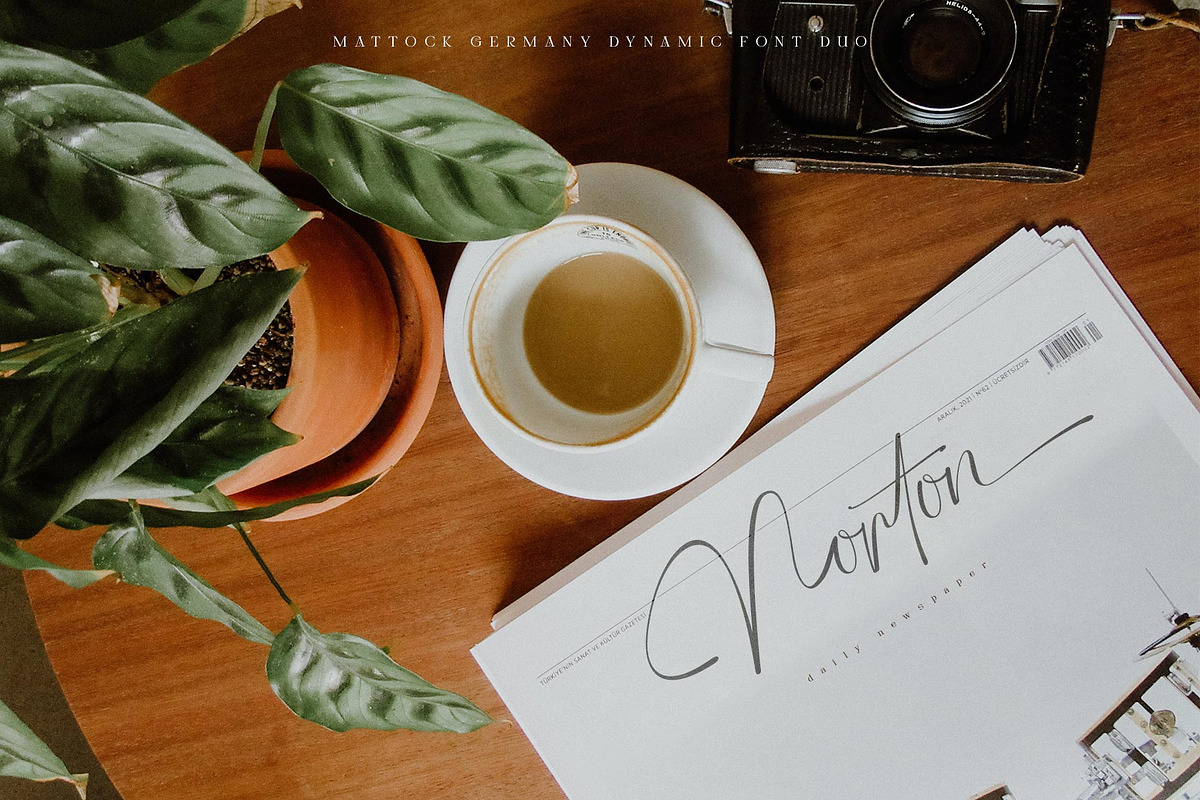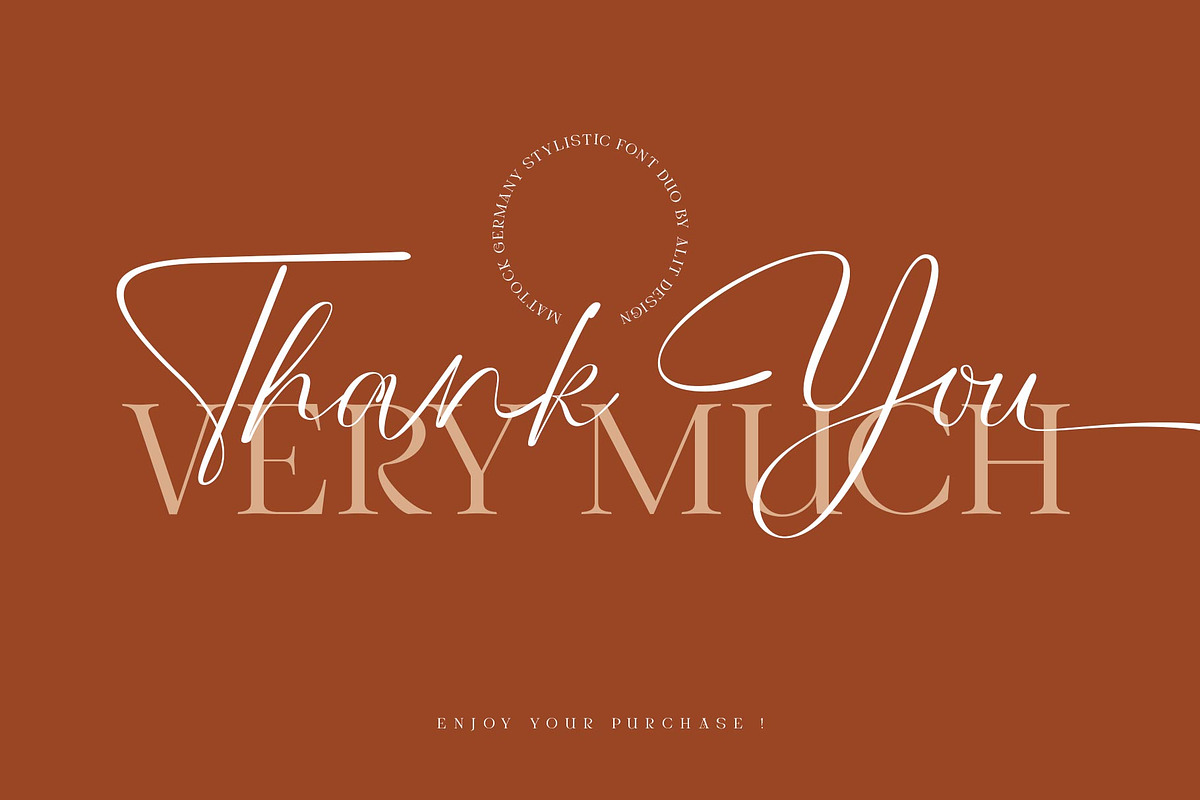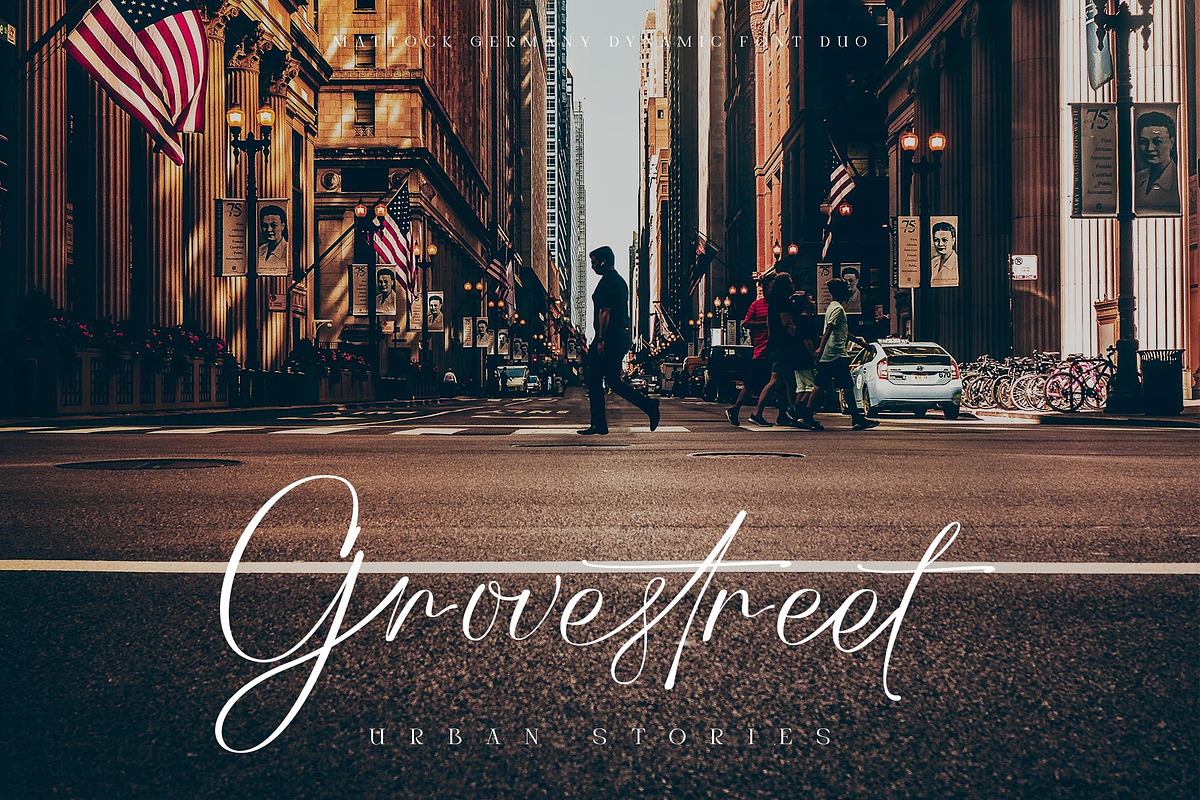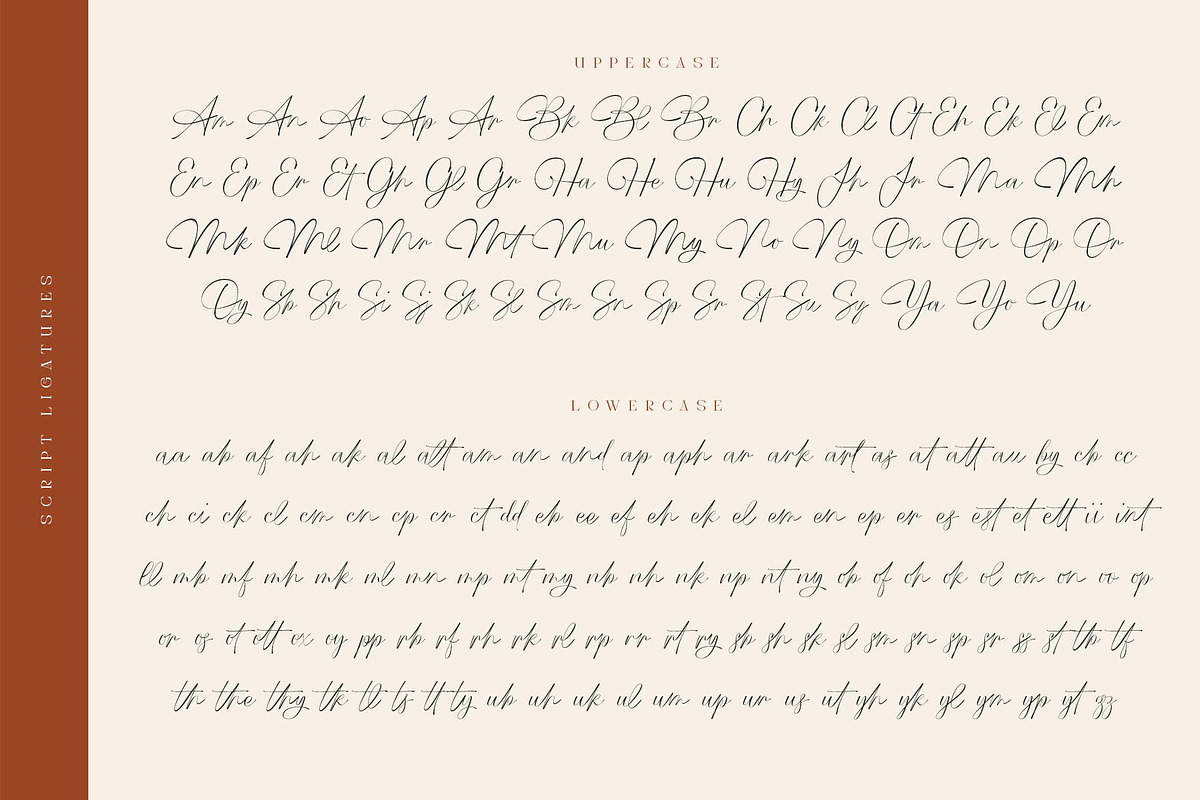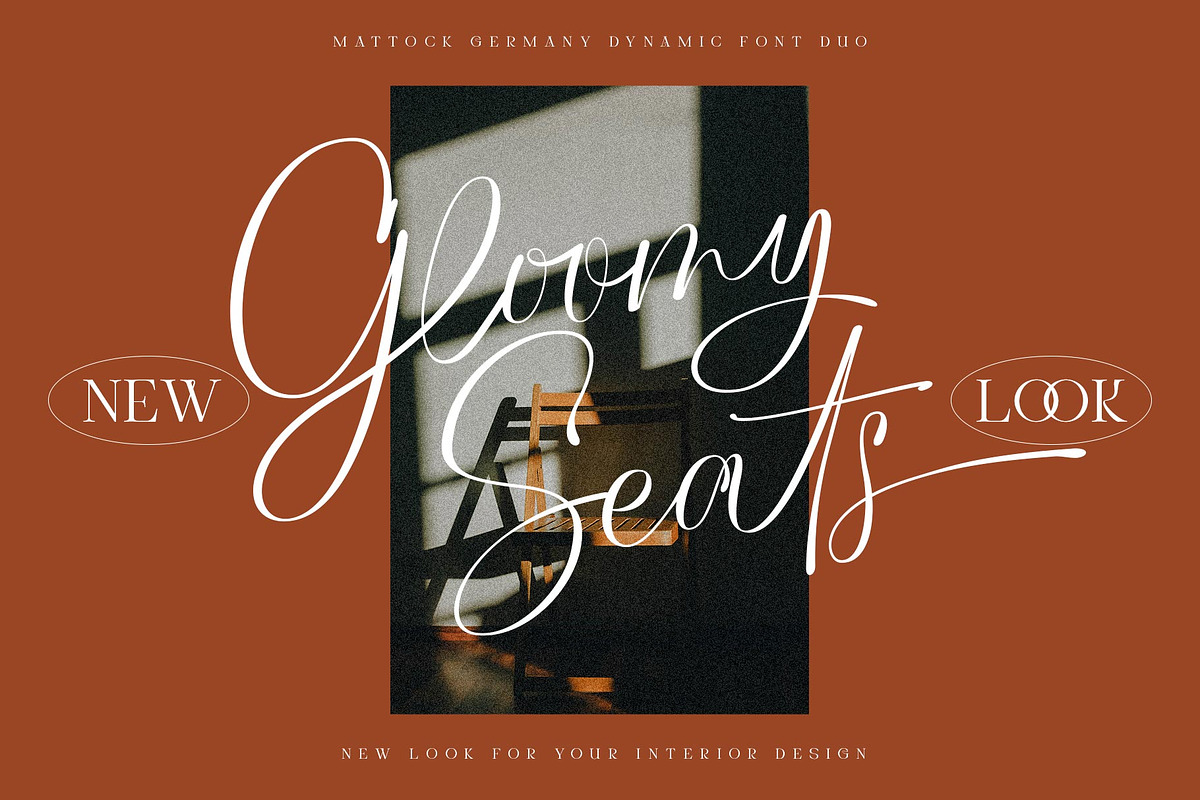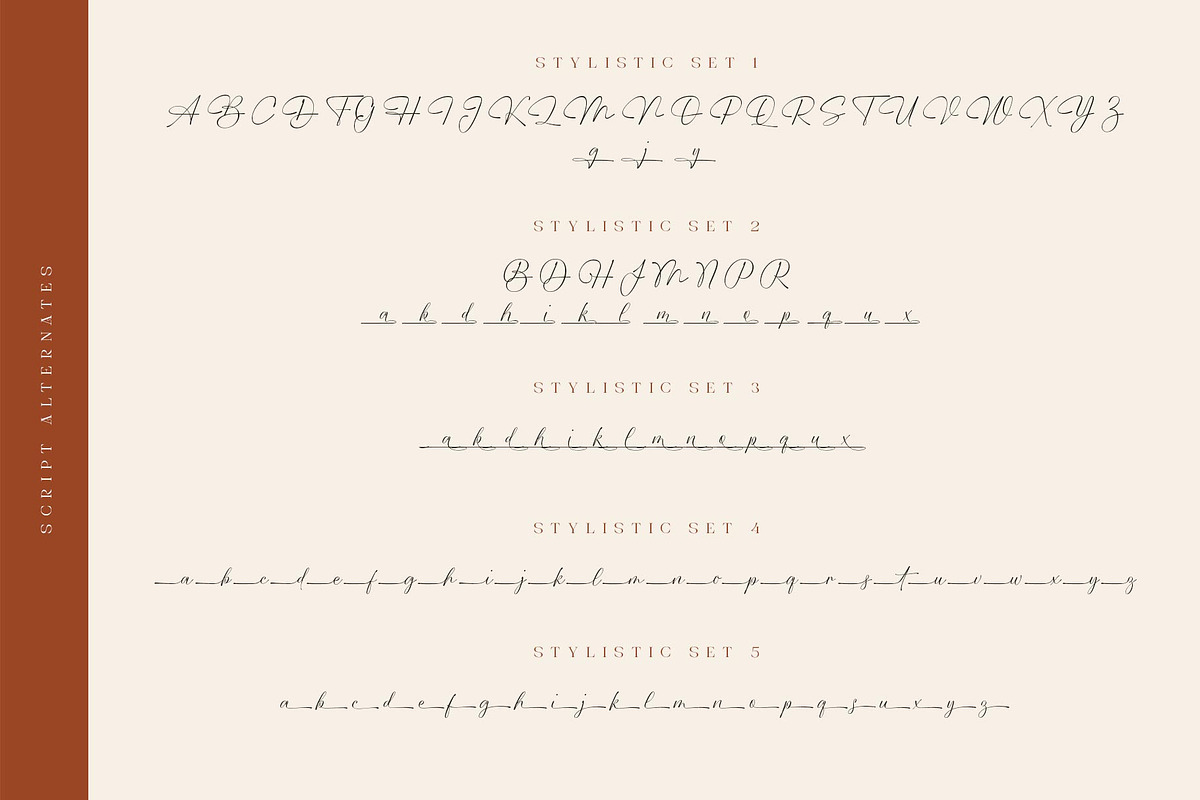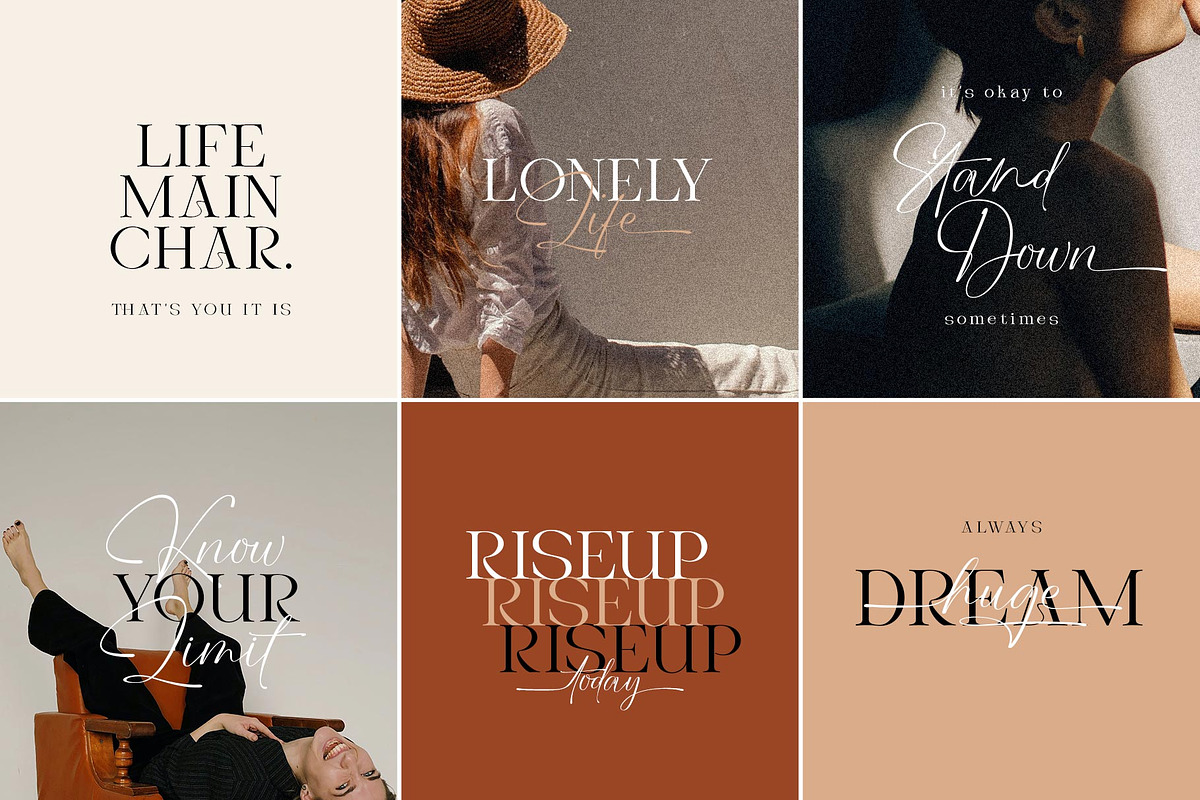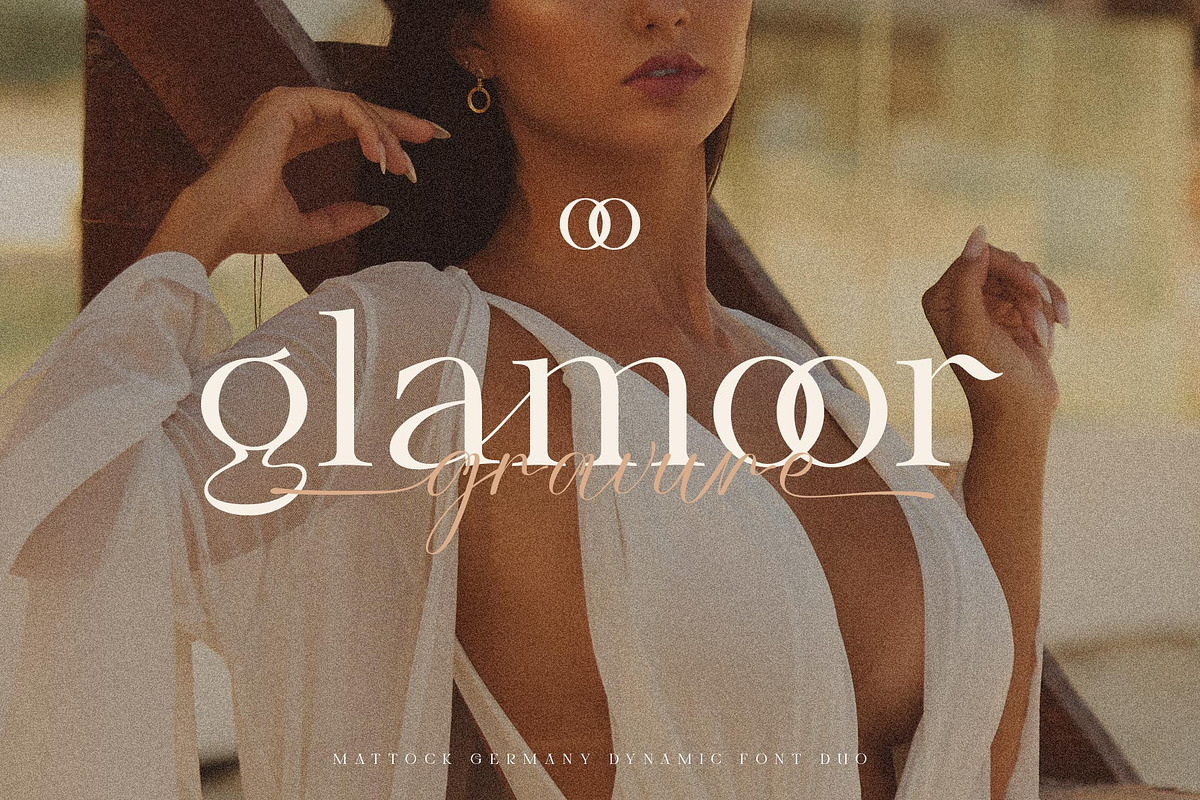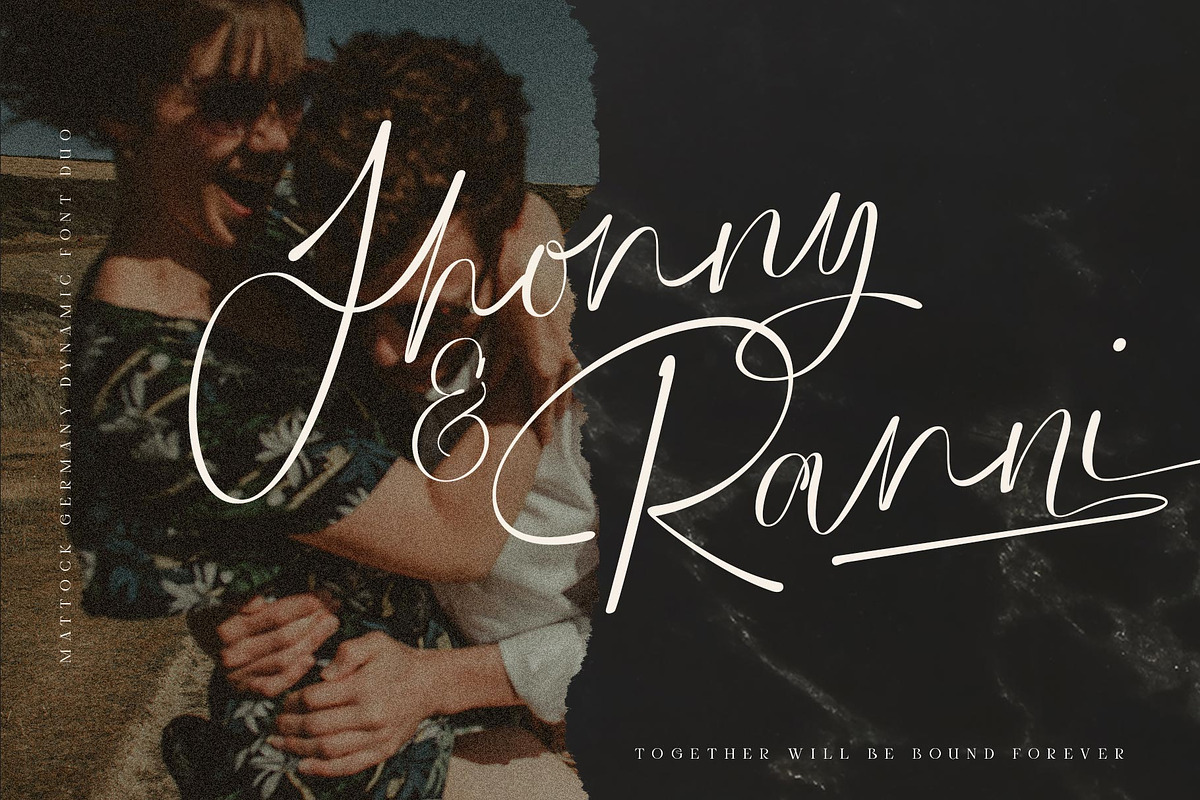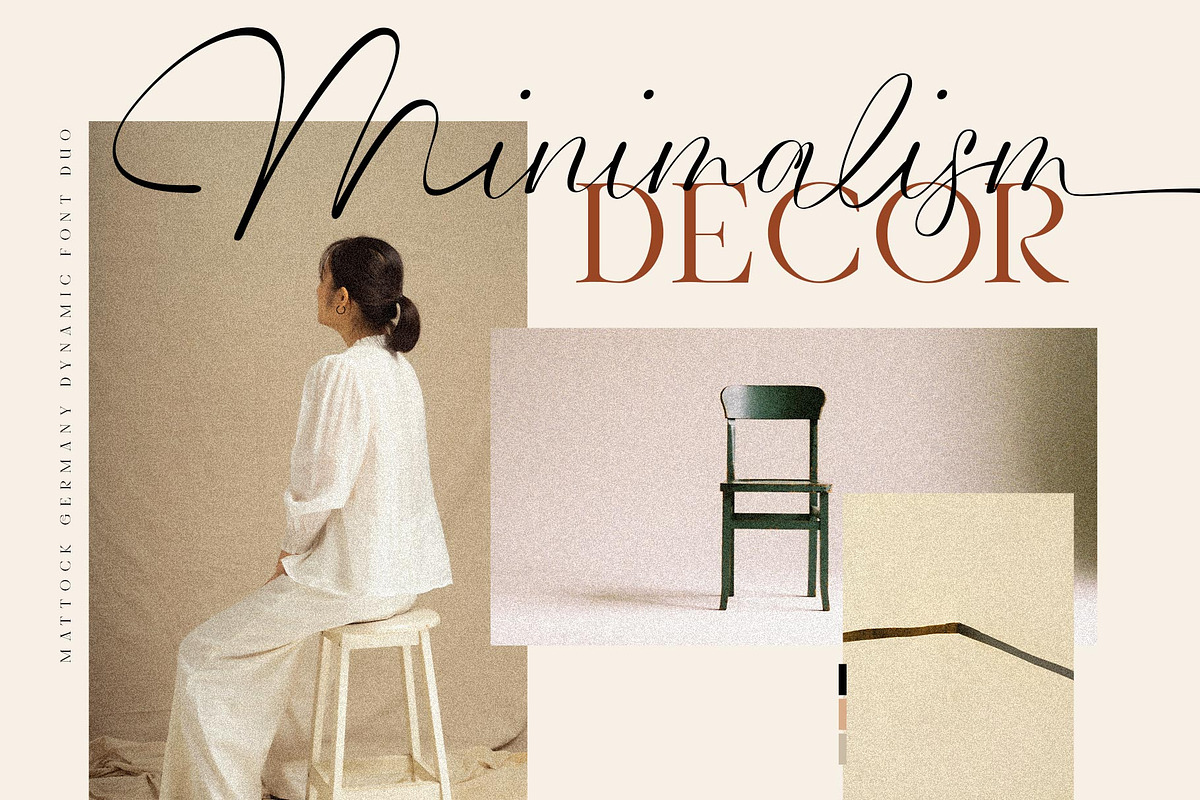
Mattock Germany Font Duo
Presenting the Mattock Germany font duo from alitdesign.
The Mattock Germany font duo is inspired by spontaneous and dynamic signature strokes with ink textures that bring the Mattock font to life. The Mattock font looks unique and charming which makes the design using the Mattock font look more prominent and cool. German font with elegant serif characters and has a unique character when combined with the Mattock font creates an elegant, natural and different design.
The Mattock Germany duo font is perfect for new font collections on your computer, tablet and smartphone to create unique designs, logos, quotes.
The duo Mattock Germany font is perfect for magazine cover designs, brochures, pamphlets. Instagram ads, Canva Design and so on with unique and modern concepts. Besides that, this font is very easy to use both in design and non-design programs because all changes and glyphs are supported by Unicode (PUA).
The Mattock Germany duo font contains 769 + 569 glyphs with many unique and interesting alternative options.
Language Support : Latin, Basic, Western European, Central European, South European,Vietnamese.